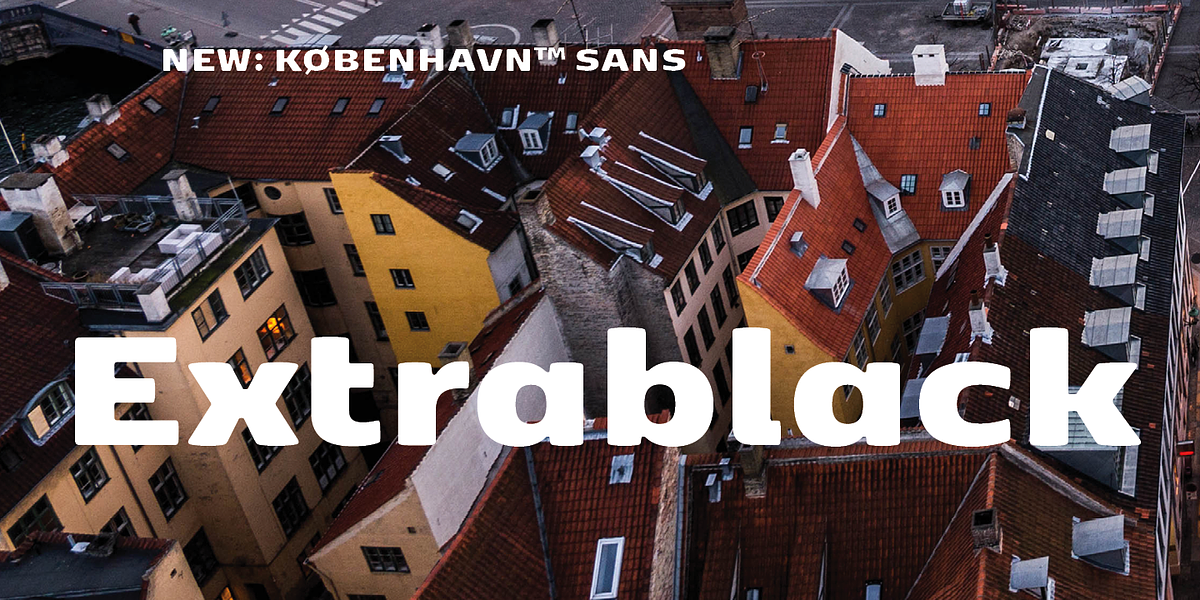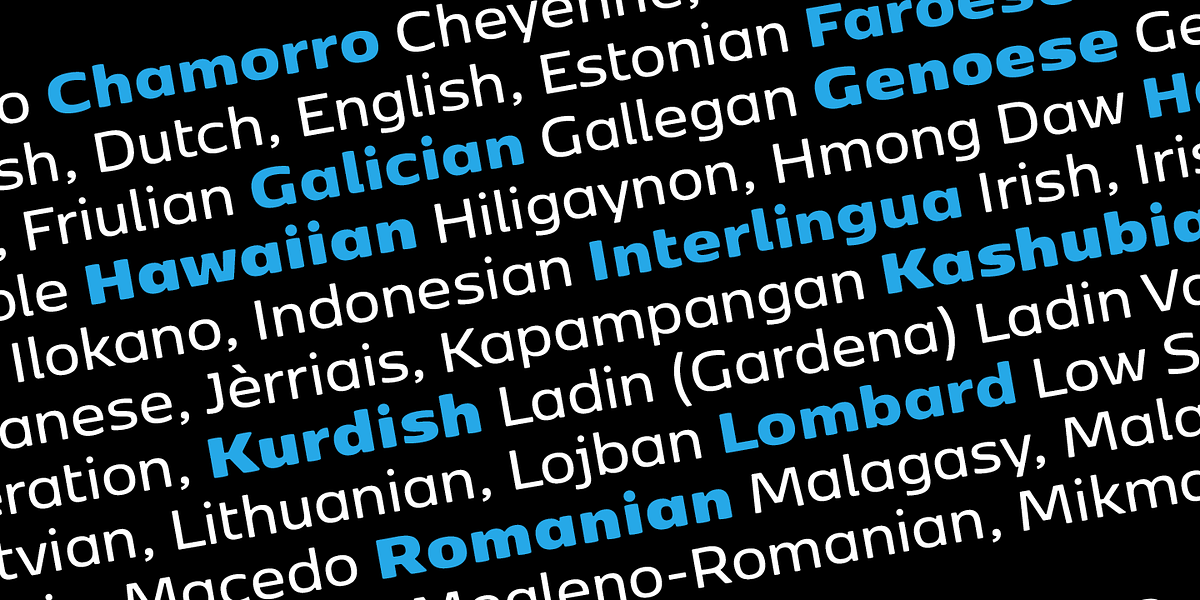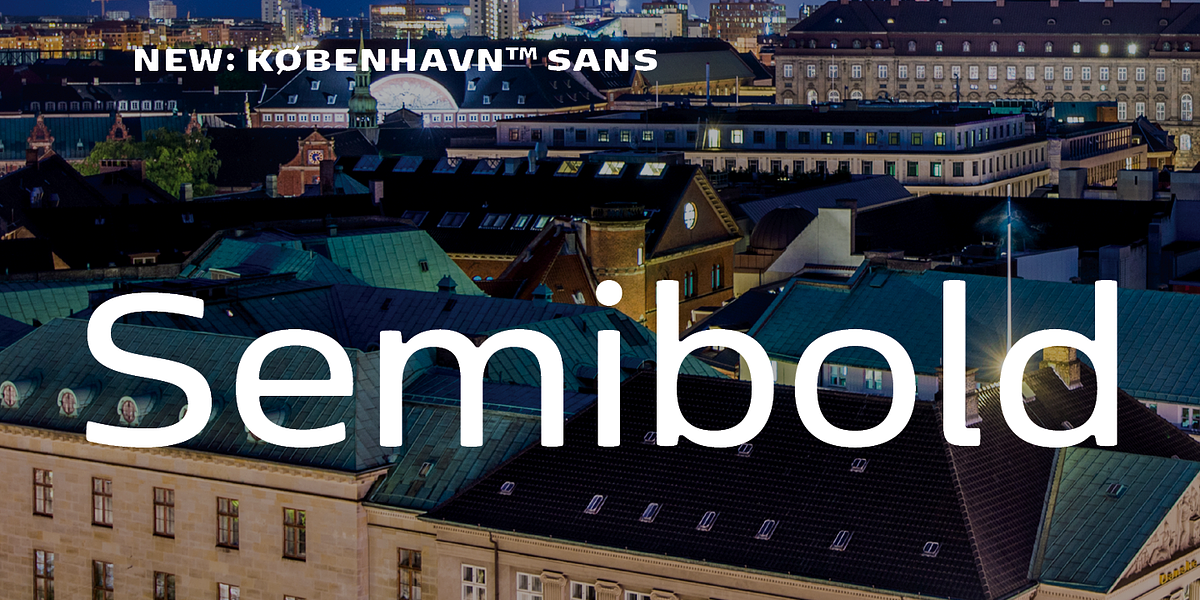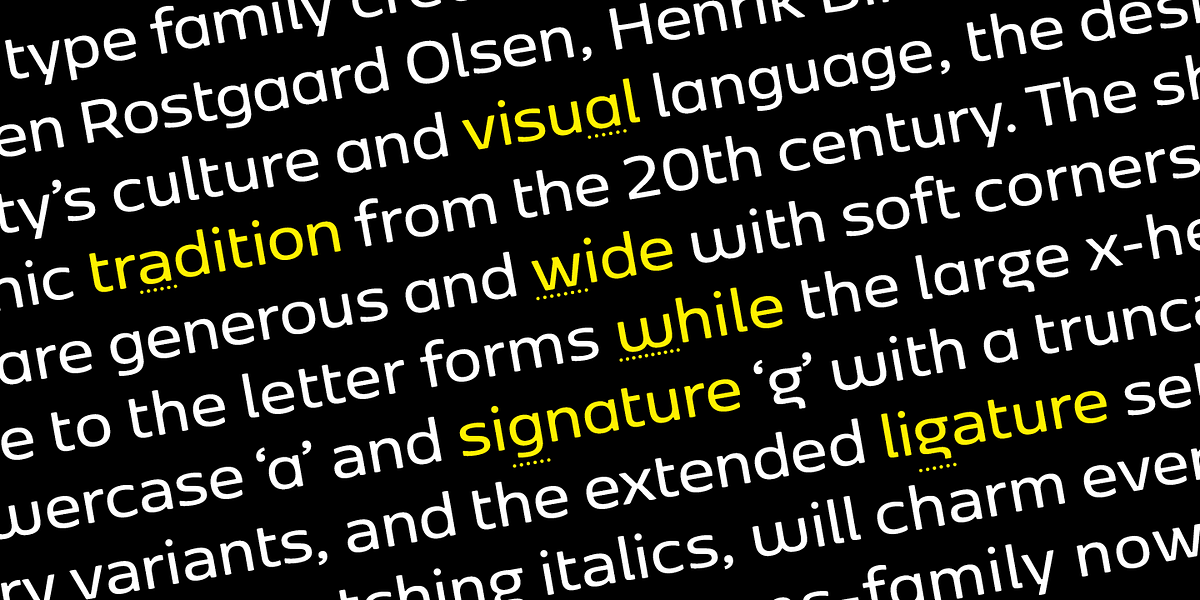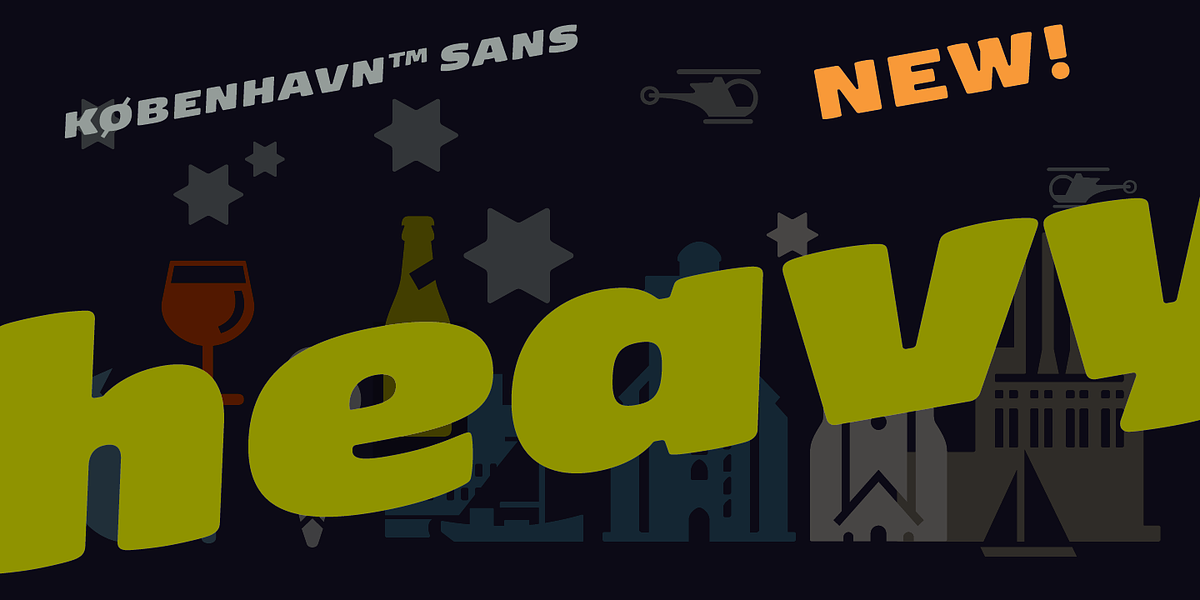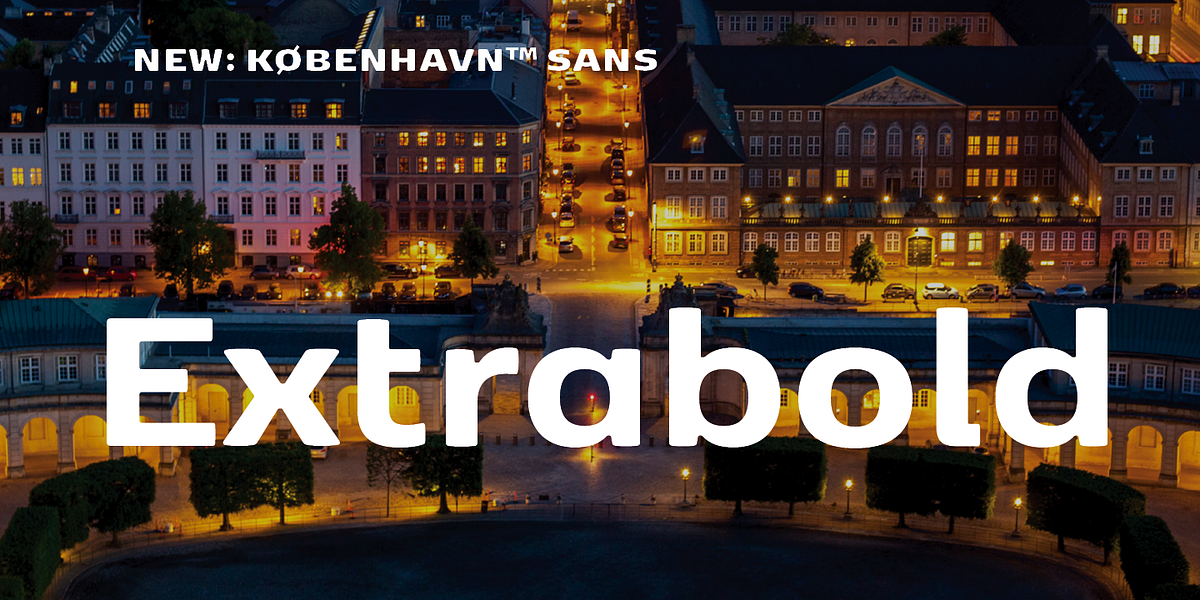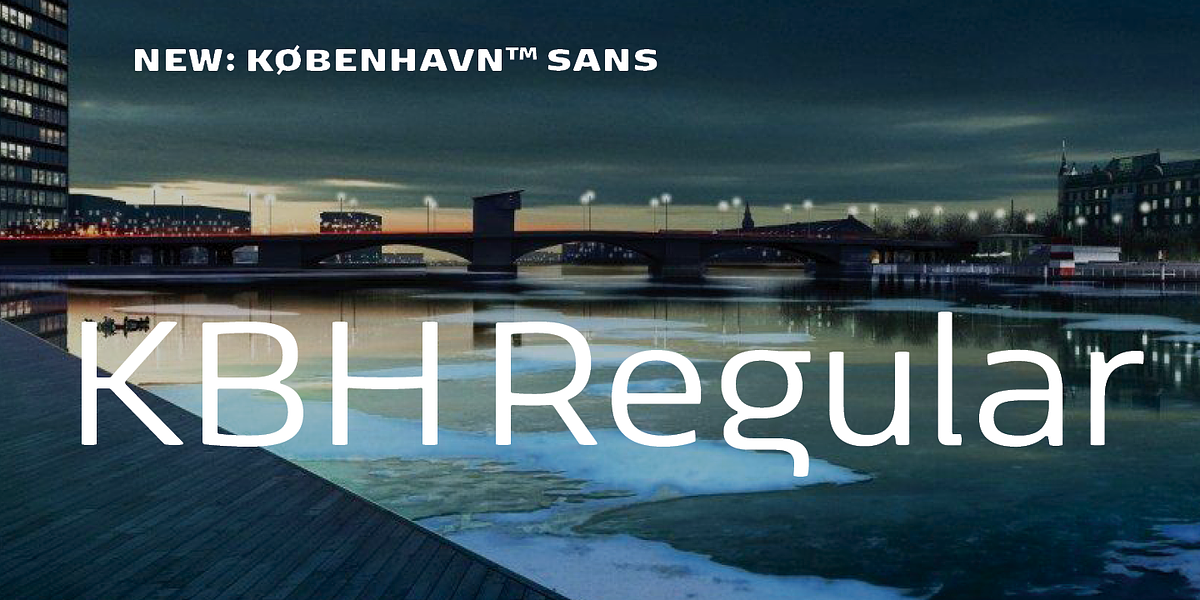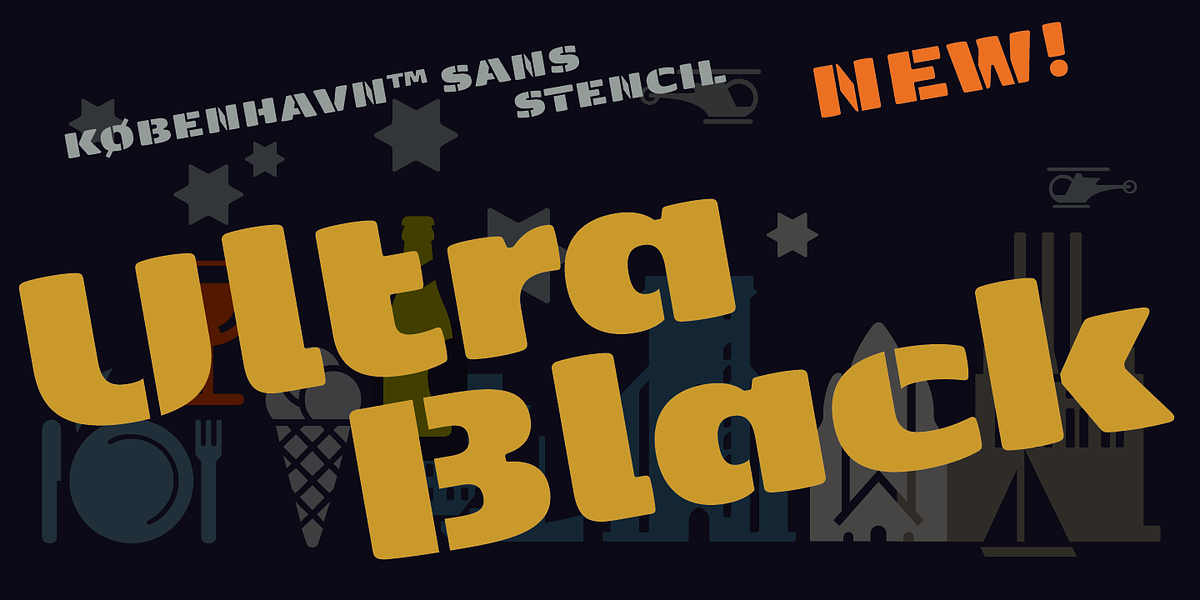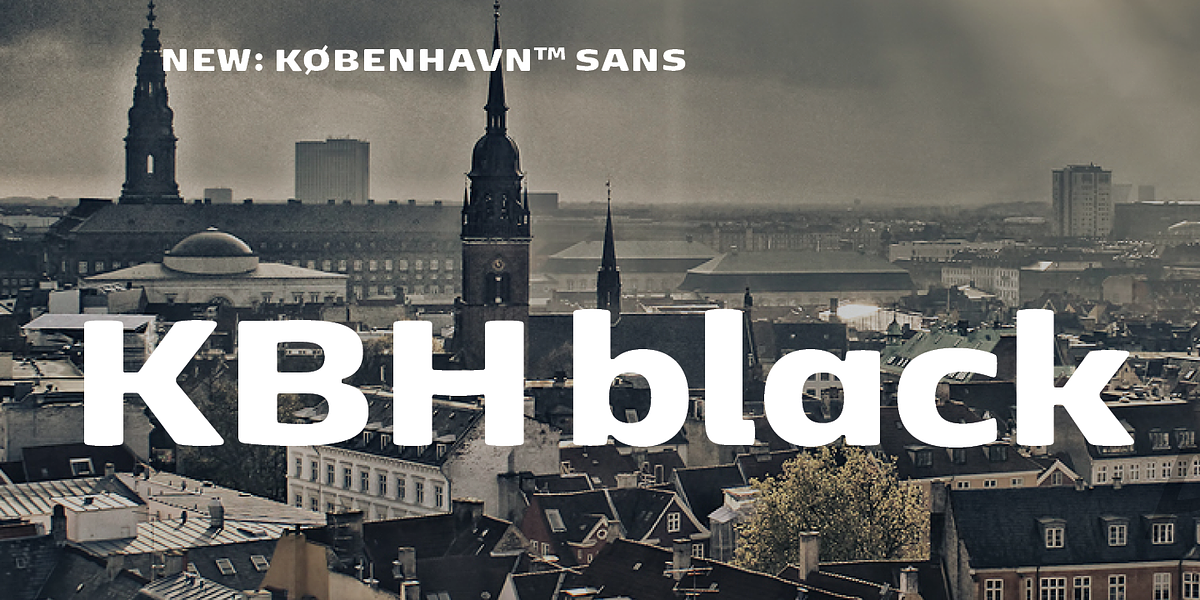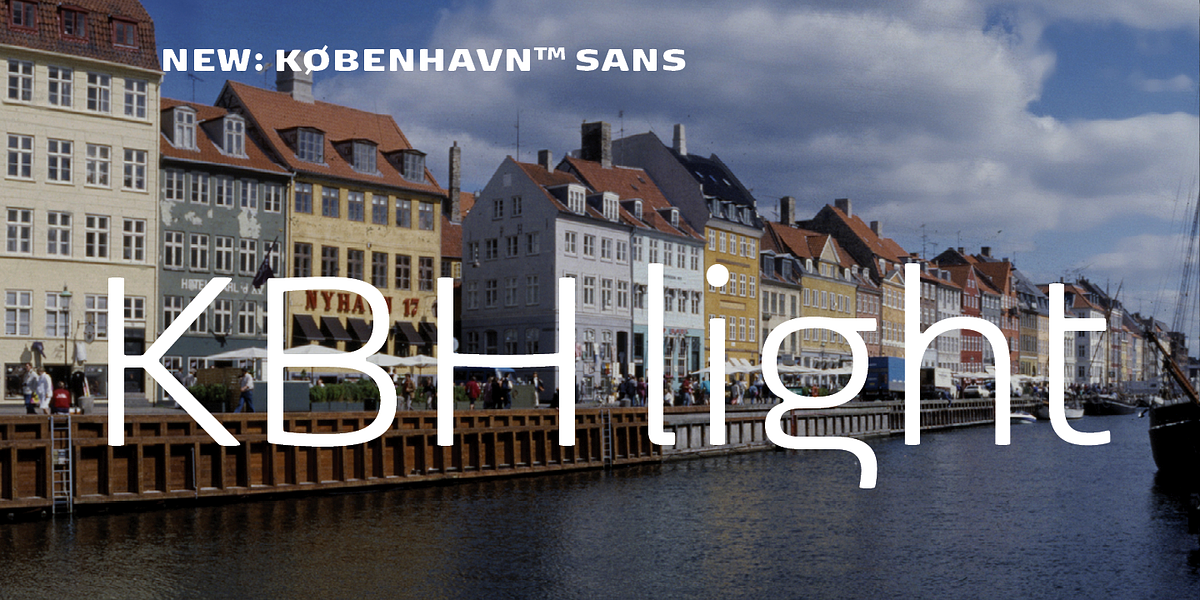
FP København Sans
FP København is a humanist sans-serif typeface designed to represent the Danish capital. Its rounded corners and wide proportions create a warm and friendly feeling, reflecting Copenhagen's culture. The font draws inspiration from the city's design landscape in the 20th century.